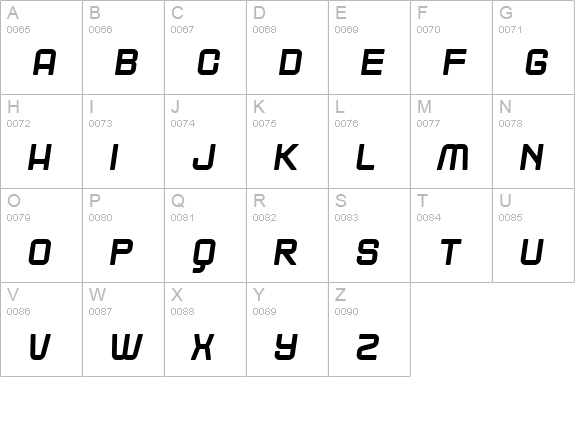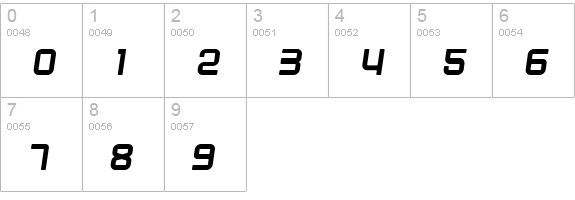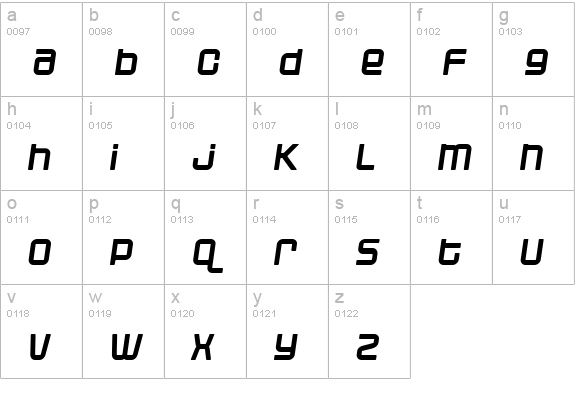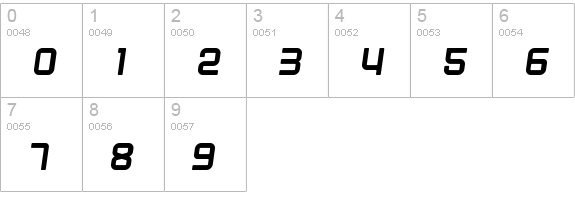
Blackjack Rollin Font Details
Blackjack Rollin font is a stylish and modern typeface that exudes a sense of sophistication and elegance. Its sleek lines and bold curves make it perfect for various design projects, from logos to branding, posters, and more. The font's versatility allows it to be used in both formal and informal settings, making it a go-to choice for designers looking to make a statement. What's even better is that Blackjack Rollin font is available for free download at FontsMarket.com. This means you can access this beautiful font without any cost, adding value to your creative projects without breaking the bank. Don't miss out on this opportunity to enhance your designs with the stunning Blackjack Rollin font today!